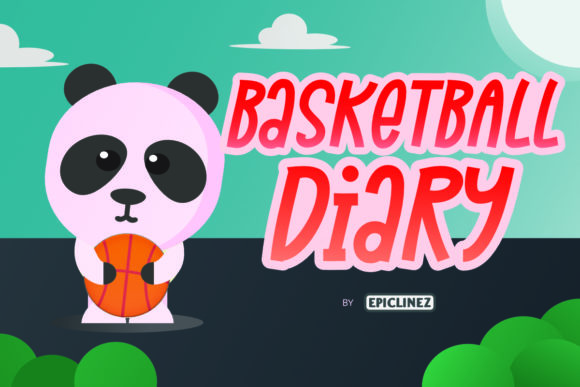
Basketball Diary Font: Unleash Your Creativity with this Playful and Fun Display Font
Are you looking for a font that can add a touch of playfulness and energy to your designs? Look no further than the Basketball Diary font! This whimsical display font is perfect for creatives who want to make a statement with their work. In this article, we’ll dive into the world of Basketball Diary font and explore its features, benefits, and uses.
What is Basketball Diary Font?
Basketball Diary font is a display font designed to capture the spirit of basketball and the excitement of the game. It’s a playful and fun font that’s full of energy, making it perfect for designs that require a lively and dynamic feel. The font features bold and rounded letters, with a mix of uppercase and lowercase letters that give it a unique and quirky look.
Key Features of Basketball Diary Font
- Playful and Fun: Basketball Diary font is designed to be playful and fun, making it perfect for designs that require a lighthearted and energetic feel.
- Whimsical Feel: The font features a whimsical feel that’s reminiscent of handwritten notes and diary entries.
- Bold and Rounded Letters: The font features bold and rounded letters that give it a unique and eye-catching look.
- Uppercase and Lowercase Letters: The font features a mix of uppercase and lowercase letters, making it perfect for designs that require a mix of headings and body text.
Benefits of Using Basketball Diary Font
So why should you use Basketball Diary font in your designs? Here are just a few benefits of using this playful and fun display font:
- Adds Energy to Your Designs: Basketball Diary font is perfect for designs that require a boost of energy and playfulness.
- Perfect for Headings and Titles: The font’s bold and rounded letters make it perfect for headings and titles that need to grab attention.
- Unique and Eye-Catching: The font’s whimsical feel and unique lettering make it stand out from more traditional fonts.
- Easy to Read: Despite its playful feel, Basketball Diary font is easy to read, making it perfect for designs that require a mix of headings and body text.
Uses of Basketball Diary Font
Basketball Diary font is a versatile font that can be used in a variety of designs, including:
- Posters and Flyers: The font’s bold and eye-catching letters make it perfect for posters and flyers that need to grab attention.
- Social Media Graphics: The font’s playful feel makes it perfect for social media graphics that require a lighthearted and energetic tone.
- Logos and Branding: The font’s unique and whimsical feel make it perfect for logos and branding that require a touch of personality.
- Headings and Titles: The font’s bold and rounded letters make it perfect for headings and titles that need to stand out.
Tips for Using Basketball Diary Font
Here are a few tips for using Basketball Diary font in your designs:
- Use it Sparingly: While Basketball Diary font is playful and fun, it can be overwhelming if used too much. Use it sparingly to add a touch of energy to your designs.
- Pair it with Other Fonts: The font’s bold and rounded letters make it perfect for pairing with other fonts that have a more traditional feel.
- Experiment with Colors: The font’s playful feel makes it perfect for experimenting with bright and bold colors.
In conclusion, Basketball Diary font is a playful and fun display font that’s perfect for creatives who want to add a touch of energy and whimsy to their designs. With its bold and rounded letters, whimsical feel, and mix of uppercase and lowercase letters, this font is sure to make a statement. Whether you’re designing posters, social media graphics, logos, or headings and titles, Basketball Diary font is a versatile font that can help you unleash your creativity and bring your designs to life.
Get Inspired by Basketball Diary Font
So why not get inspired by Basketball Diary font and see how you can use it to add a touch of playfulness and energy to your designs? With its unique and eye-catching letters, this font is sure to spark your creativity and help you create designs that stand out from the crowd.